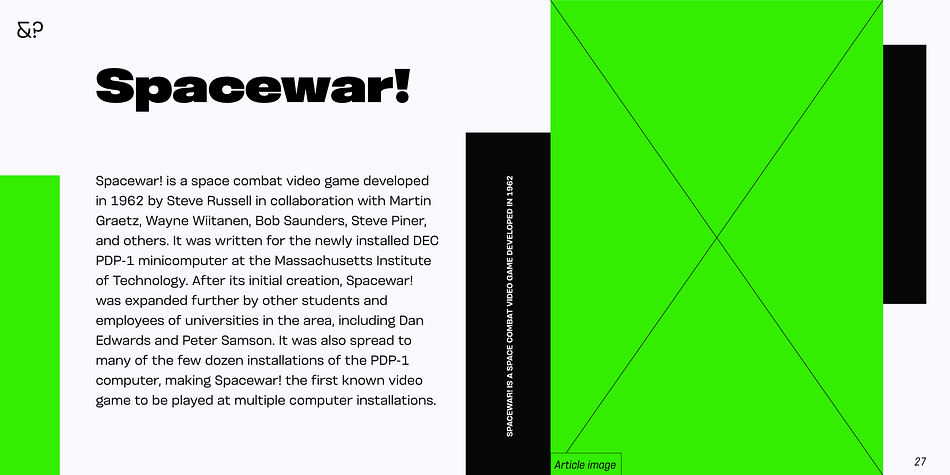
Otoiwo Grotesk Compressed
Otoiwo Grotesk Compressed is a sans serif font family. This typeface has eighteen styles and was published by Pepper Type.
Otoiwo Grotesk is an extremely versatile sans-serif typeface with a closed aperture. It features whopping 126 styles over 7 widths, each containing 9 weights with corresponding italics.
The mood of the family ranges from fairy neutral in Normal and Condensed widths to very flavorful Compressed and Ultra Wide.
Rich language support, which includes Cyrillic and spans 131 language ovarall, makes Otoiwo Grotesk a worthy choice for brands that strive to reach international audience.